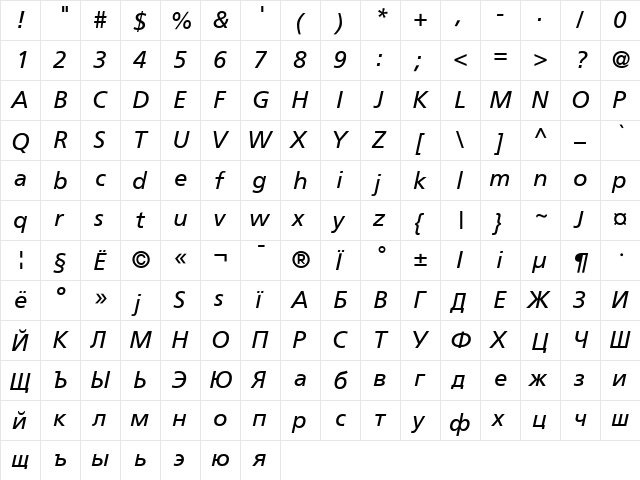
Foreigner-Italic Medium
Design Context for Foreigner-Italic Typeface
Foreigner-Italic offers clean, dependable letterforms without strong stylistic allegiance, making it a practical choice for designers who need flexibility. The dynamic lean of this cut emphasises speed and emphasis in any layout.
Pro Tip: Try Foreigner-Italic for annotation and caption copy alongside an upright companion — the contrast in angle creates a dynamic but ordered typographic system.